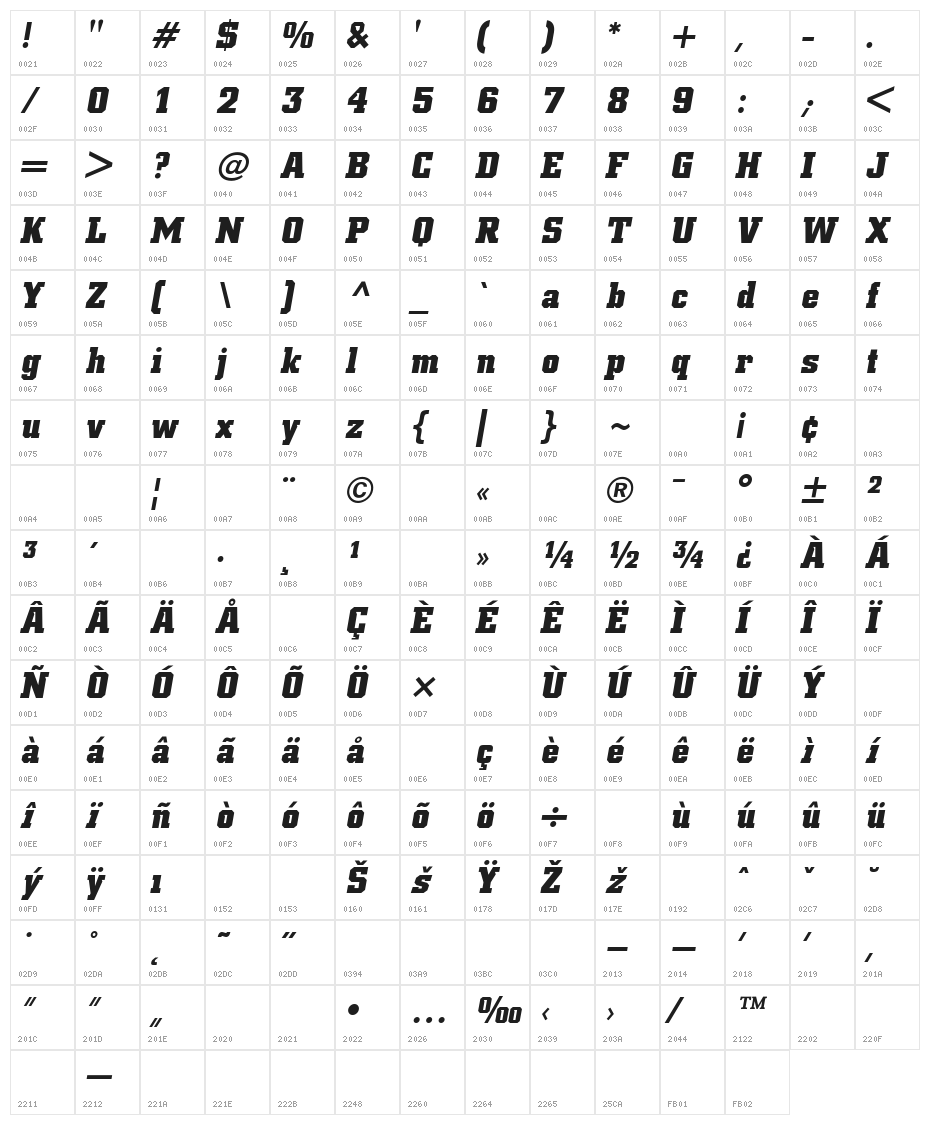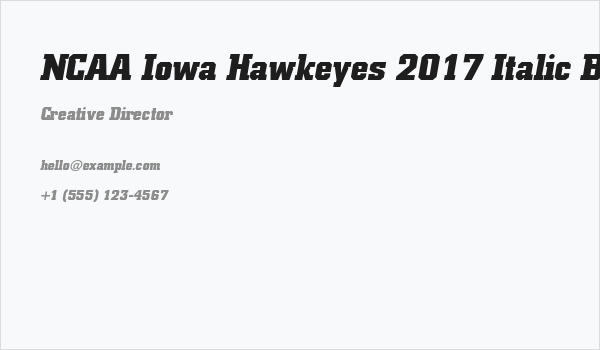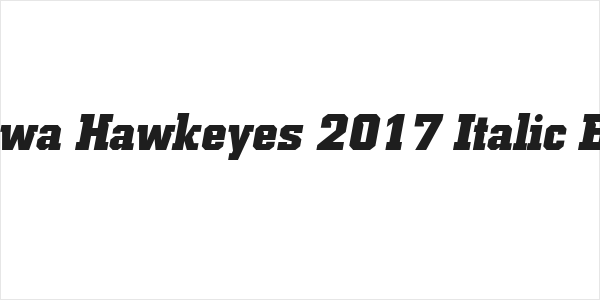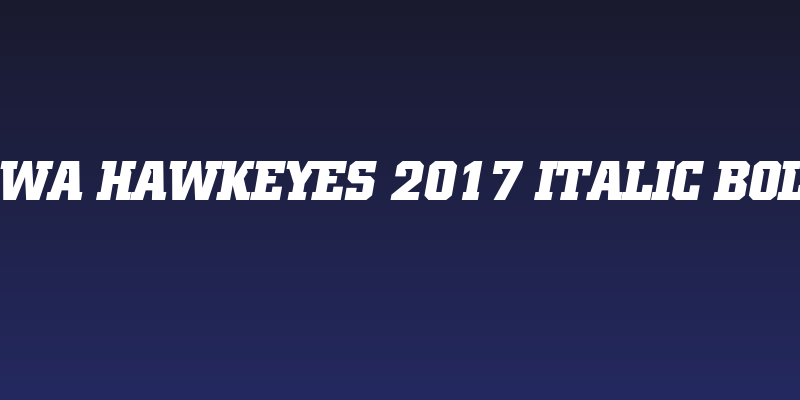
NCAA Iowa Hawkeyes 2017 Italic BoldItalic Font
NCAA Iowa Hawkeyes 2017 Italic BoldItalic Description
This bold italic font features a strong, dynamic presence with its angular and slanted letterforms. The uppercase and lowercase characters maintain a consistent boldness, creating a cohesive and powerful look. The numbers and special characters are equally robust, ensuring readability and impact. The font's design is reminiscent of sports and athletic themes, making it ideal for projects that require a sense of energy and movement. Its italic style adds a sense of urgency and forward motion, perfect for headlines and titles that need to stand out.
| Proposed Projects | Sports branding, athletic event posters, dynamic headlines, team logos. |